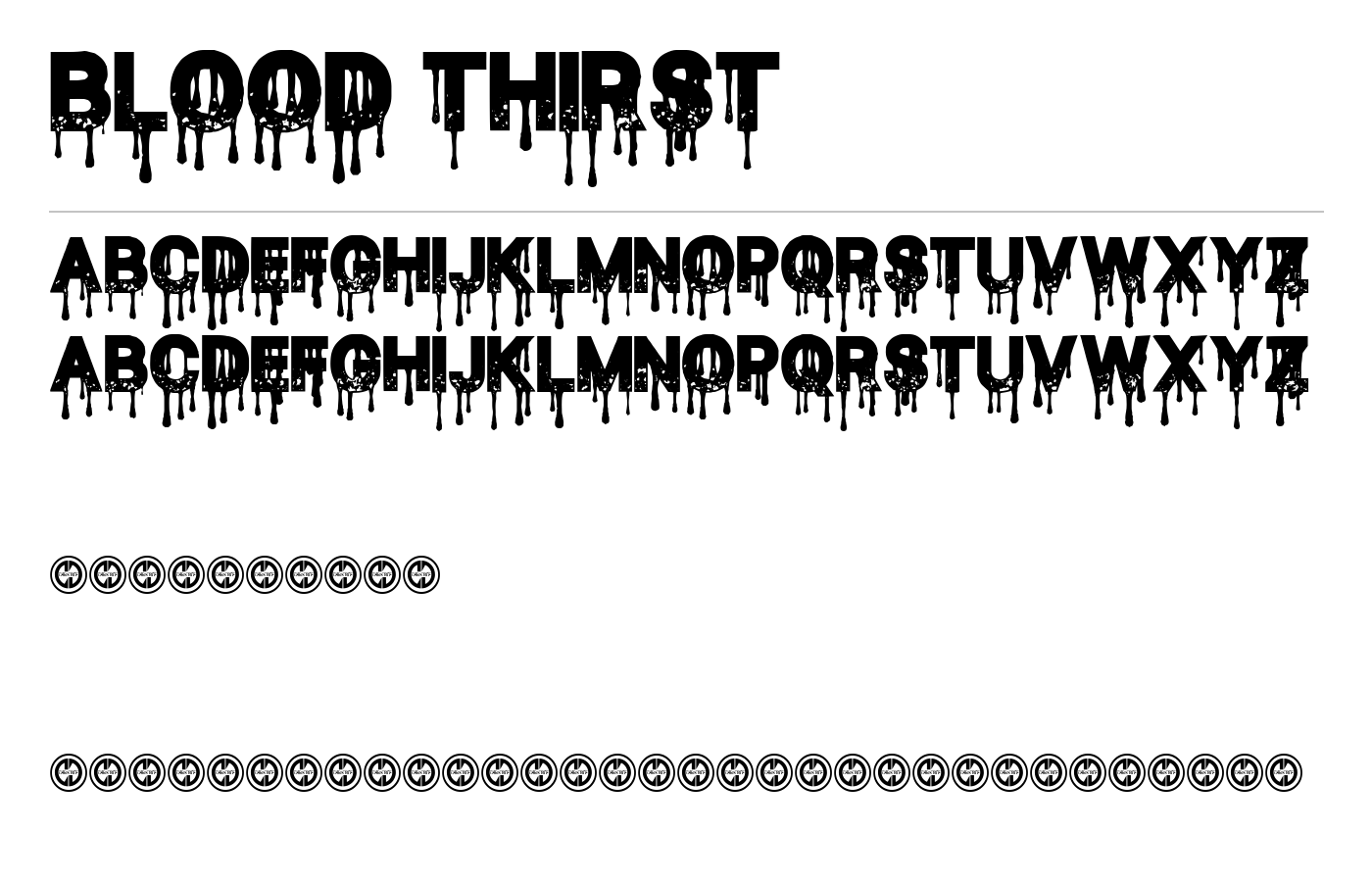
Blood Thirst is a bold, decorative sans serif font with a dramatic dripping effect that gives it a horror or thriller vibe. Its thick, blocky letters and high contrast between the solid upper portion and the melting lower strokes create a striking, eye-catching look perfect for spooky or edgy designs. This font works best in headlines, posters, and branding that aims to evoke fear, mystery, or a Halloween-inspired mood.
Blood Thirst Font
About Blood Thirst Font